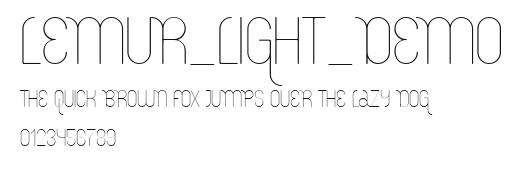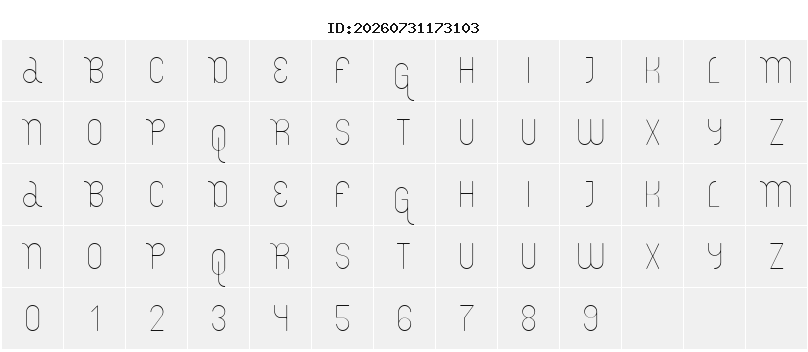
• Font Name: Lemur_Light_DEMO
• Designer: wartkowsky
• Manufacturer: andrzej_wartkowsky
About Lemur_Light_DEMO.ttf
Lemur_Light_DEMO.ttf is a modern, elegant sans-serif font designed for ultimate readability and visual harmony. Perfect for branding, headlines, web design, and print materials.